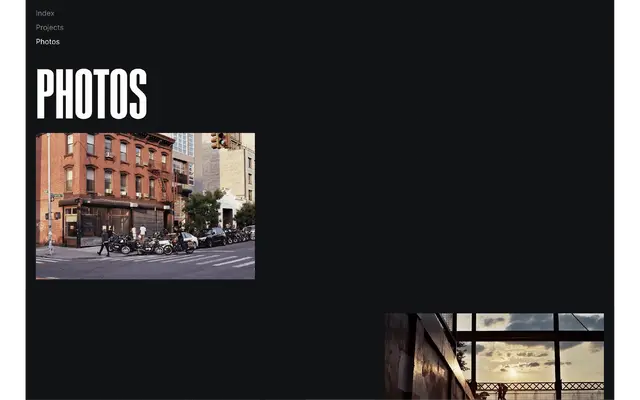
Calhern specimen from Frost
A grotesque sans in 26 styles spanning 13 weights, from Hairline to Black, with matching italics, a Condensed subfamily and an unusual Skeleton cut.
The family runs an exceptionally wide weight range from Hairline and Ultrathin through to Heavy and Black, with every weight accompanied by an italic. A Wide and a Condensed variant extend its typographic range further, while a Skeleton style offers an inline or outline effect for display use. The combination of extreme weight contrast and a dedicated Condensed subfamily makes it well suited to editorial hierarchies and headline-led design.
Calhern presents as a grotesque sans-serif with a wide range of weights from Hairline to Black, plus a Skeleton style and condensed variant, consistent with the neo-grotesque tradition extended into contemporary type design.